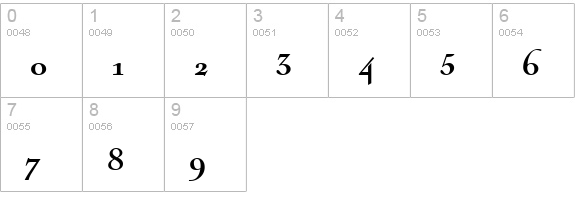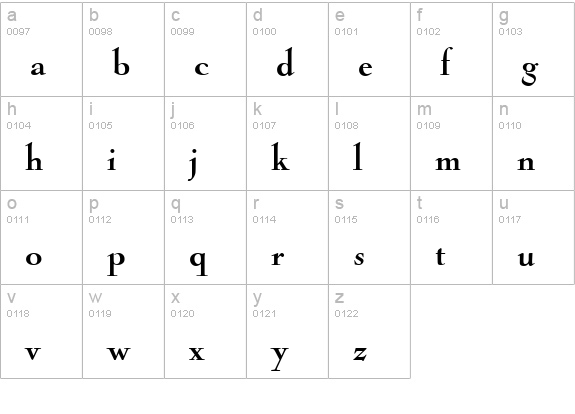
Nicolas-Bold is a strong, high-contrast variant in the Nicolas typeface family \xE2\x80\x94 well suited to headlines, attention-grabbing titles, and strong calls-to-action.
Nicolas-Bold is a striking and sophisticated font that exudes confidence and elegance. With its bold strokes and clean lines, this font commands attention and makes a bold statement. Perfect for headlines, logos, and branding projects, Nicolas-Bold is sure to make your text stand out. The best part? Nicolas-Bold is completely free to download at FontsMarket.com. You can easily add this stunning font to your collection and use it in a variety of projects without any cost. So why wait? Download Nicolas-Bold now and elevate your designs with its powerful and stylish aesthetic.